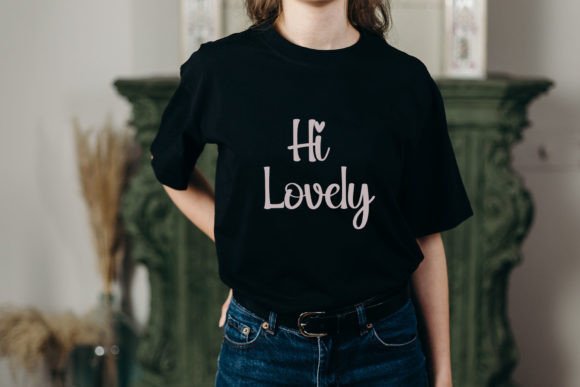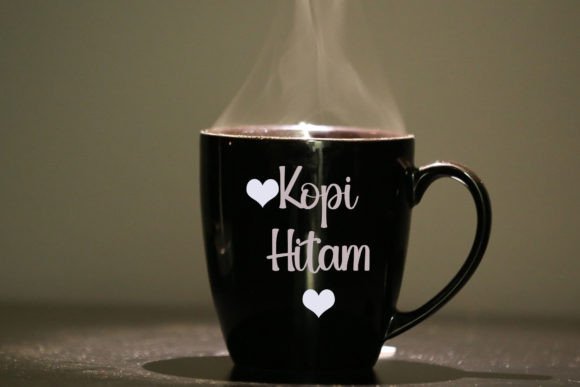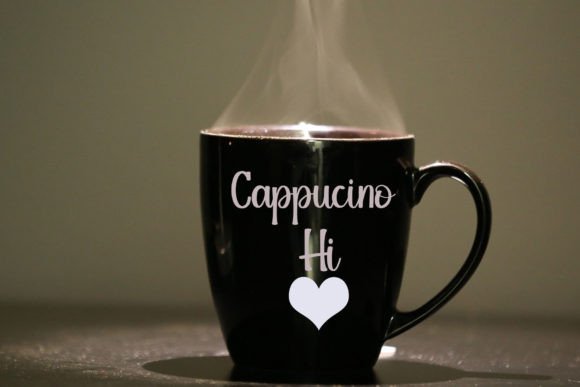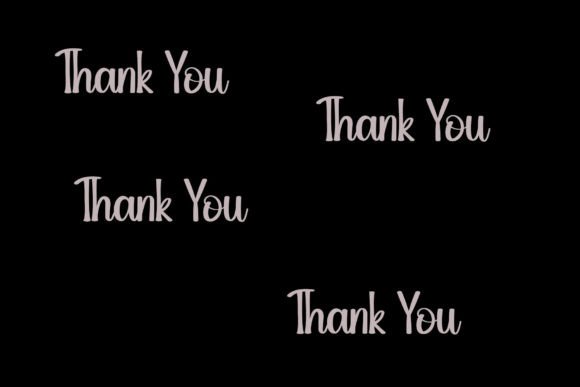
The Perfect Brush Stroke for Your Design
Have you ever stared at a blank canvas, struggling to find the right words to express your creative vision? You’re not alone. Many designers have been there, searching for the perfect font to bring their ideas to life. That’s where Handwritten Font comes in – a beautiful, contemporary font inspired by the timeless elegance of classic calligraphy.
With its impeccable form and modern atmosphere, Handwritten Font is the perfect addition to any design project. Whether you’re working on a branding campaign, a wedding invitation, or a social media post, this font will add a touch of sophistication and class that’s sure to leave a lasting impression. For designers, Handwritten Font is a valuable tool that can elevate their work and help them stand out in a crowded market.
Key Features of Handwritten Font
- Font Size: Designed to be highly legible in a wide range of font sizes, from 8pt to 48pt, making it suitable for various applications, including signage, invitations, and digital displays.
- Resolution: Optimized for high-resolution displays, including Retina and 4K screens, ensuring crisp and clear text at any zoom level.
- Unique Characteristics: Features a unique, hand-drawn style with subtle imperfections, giving it a personal and organic feel, perfect for creating a warm and inviting atmosphere.
- Font Weight: Available in 5 different font weights (Thin, Light, Regular, Bold, and Heavy), allowing for a range of design possibilities and flexibility.
- Language Support: Supports a wide range of languages, including Latin, Cyrillic, and Greek alphabets, making it suitable for global applications and translations.
Handwritten Font Review
Overall, I’m impressed with the Handwritten Font, but it’s not without its quirks. Here are my thoughts:
- Unique Character: The Handwritten Font has a distinctive, personal touch that sets it apart from other fonts. It’s perfect for adding a human element to your designs.
- Expressive Variations: The font comes with a range of variations, from light to bold, which allows for a lot of creative flexibility.
- Perfect for Emphasis: The Handwritten Font is great for adding emphasis to text, whether it’s a title, a quote, or a call-to-action.
- Limited Legibility: At smaller sizes, the font can become difficult to read, especially in digital formats.
- Not Suitable for Body Text: While the Handwritten Font is great for emphasis, it’s not ideal for large blocks of text. It can be tiring to read.
- Lack of Consistency: The font’s handwritten feel can sometimes result in inconsistent letterforms and spacing.
Overall, the Handwritten Font is a great choice for designers who want to add a touch of personality to their work. Just be mindful of its limitations and use it judiciously.
Tips for Getting the Most Out of Handwritten Font
1. Experiment with different font styles and sizes to achieve the desired effect.
2. Use handwritten font for headings, titles, and other attention-grabbing elements.
3. Combine handwritten font with other design elements, such as images and graphics, to create a unique and eye-catching design.
1. Invitations and event graphics.
2. Social media posts and captions.
3. Marketing materials and brochures.